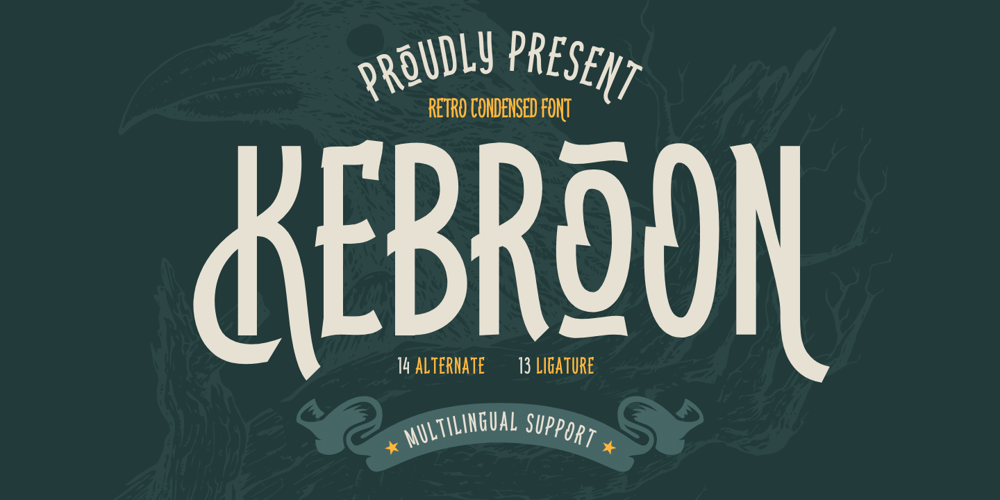
Kebroon Font Family was designed by Rozikan and published by Twinletter. Kebroon contains 1 styles and family package options. Introducing the Kebroon font, a stylish and unique retro condensed font perfect for all design themes. With its tall and distinctive form, Kebroon is sure to make a statement in your designs.This font features a stylistic set of alternates and unique ligatures that add a touch of sophistication to any project. Whether you’re creating a film title, a logo, or any other design project, Kebroon is the perfect font to make your work stand out. Get your hands on Kebroon today and elevate your design game!What’s Included :- File font- All glyphs Iso Latin 1- Alternate, Ligature- Simple installations- We highly recommend using a program that supports OpenType features and Glyphs panels like many Adobe apps and Corel Draw so that you can see and access all Glyph variations.- PUA Encoded Characters – Fully accessible without additional design software.- Fonts include Multilingual support